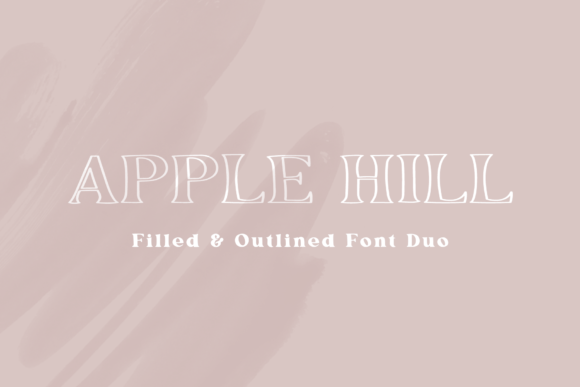
Welcome to the world of Apple Hill Font, a serif masterpiece that transforms ordinary designs into extraordinary works of art. Step into a realm where elegance meets sophistication, where each letter is meticulously crafted to evoke a sense of timelessness and classic beauty.
Apple Hill Font is not just a font; it's an experience. Its sleek lines, refined curves, and stylized serifs dance together in perfect harmony, creating an unparalleled visual symphony. Each character exudes an air of luxury, making it the ideal choice for high-end brands and designers seeking to elevate their creations.
With Apple Hill Font, you'll capture the attention of your audience, leaving them spellbound by your designs. Whether it's a captivating logo, an alluring poster, or an unforgettable T-shirt, Apple Hill Font will elevate your message and make it shine.
Dive into the world of Apple Hill Font today and let your creativity flourish. Experience the magic of timeless elegance, where every design tells a story of sophistication and grace.